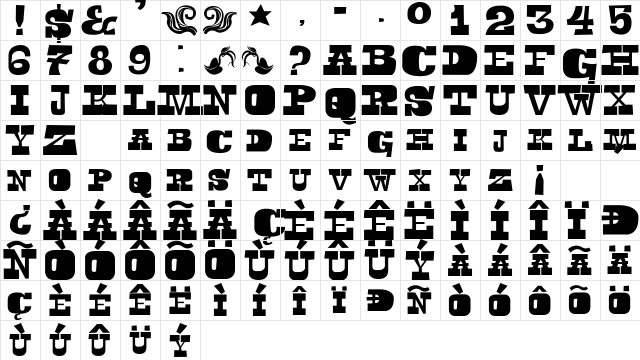
Toeris Slab
| Style | Slab |
| Foundry | Fernando Carvente |
| Designer | Luis Fernando Carvente |
Design Context for Toeris Typeface
Toeris combines the readability of serif typography with the visual weight of a slab construction, resulting in a typeface that feels both authoritative and approachable.
Suited to magazines, political campaign materials, bold packaging, and any setting where authority matters.
Pro Tip: Use Toeris for headlines and subheadings where its slab serifs can make an impression. It also holds up well in mid-size body copy thanks to its sturdy construction.